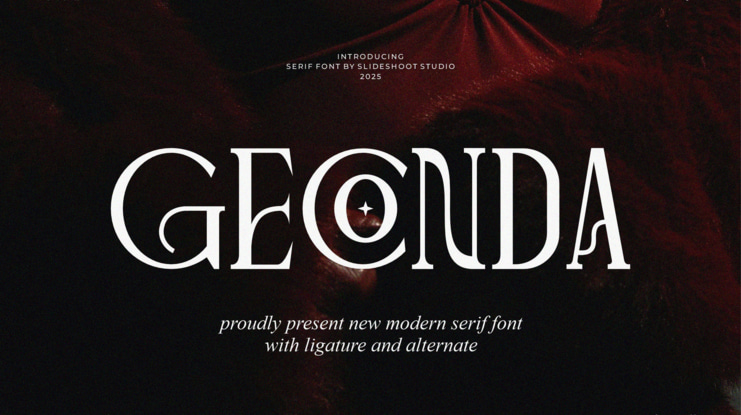
Geconda Font
Introducing Geconda is a serif font with modern theme, It has a unique character with wood theme. It is perfect to be combined with invitation card designs, company logos, movie titles, movie names, business cards, book titles, brand names and various other designs.
Geconda font preview